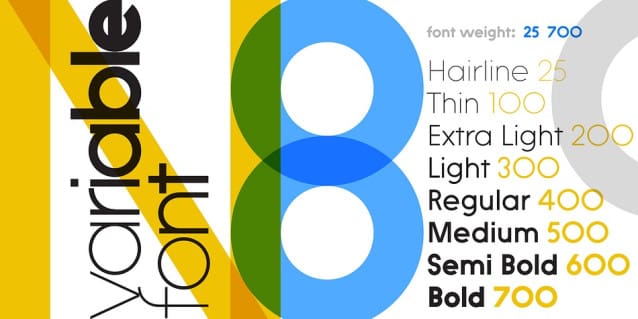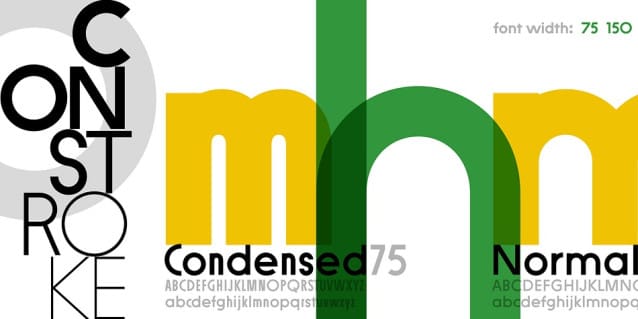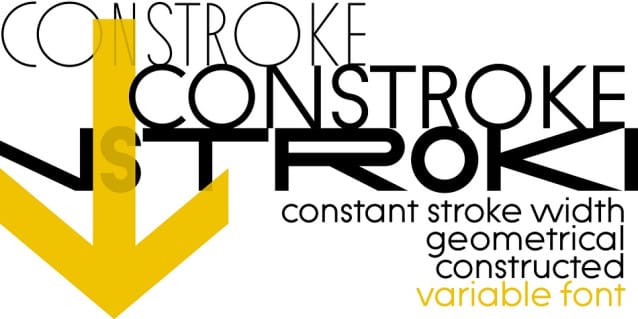
Constroke Font
Constroke Font. Designed by Ingo Zimmerman, Constroke is a sans serif font family. This typeface has twenty-five styles and was published by ingoFonts. Strictly geometrically constructed character forms with an even stroke width
The combination of the words constant and stroke results in the name for this typeface. The idea behind it: to construct letters according to geometric principles — without correcting the inevitable optical imbalances and unsightly thickening. So place the horizontal line in the H really in the middle, instead of raising it a bit like in “good” typographical manner. And with the E, all three dashes stay the same length. The round shapes are really circular too. And then I also ignored the basic typographical rule that says that the vertical stems must be thicker than the horizontal hairlines to appear equally bold to our eyes. The visible thickening that occurs when two lines cross or converge is simply accepted with the Constroke.
Against the rules
It is not because of our supposedly “modern” present that good rules are no longer relevant. However, they are only effective under certain conditions. If you look at the font at an angle and from the side, it suddenly doesn’t matter whether and how balanced the characters are. The distortion we then perceive makes all artistic and technical efforts pointless. An O viewed at an angle is just a distorted oval, whether drawn optically correctly a little taller than it is wide, or whether the stem is a little thicker than the hairline. With the straight shapes, the effect is even more pronounced: viewed from an angle, the difference in line widths appears absurdly reversed, making what was just thick appear thin and thick what should be thin.
But it wasn’t just such theoretical considerations that made me break the good old rules. The sheer joy of breaking the rules and ignoring perceived necessities such as ink traps allows for an informal approach to assembling the characters from a few basic geometric building blocks.
Typical CONSTROKE
The main feature of the Constroke is the constant stroke width. Especially in the heavier weights, veritable blots are created when two lines meet, for example at n, m, w, etc. The thickest weight results from the small e with its horizontal line in the middle, the one without optical compensation would merge into a round black dot from a certain stroke width.
Another typical feature of almost all geometric fonts is the round small a.
A true circle appears wider than it is tall, which is usually compensated for in character design. Not so in Constroke. The circular and therefore a bit too wide letters a b c d e g o p q are the characteristic distinguishing feature compared to other sans serif fonts.
Extras
Many characters are also available as stylistic alternates. This gives the font a completely different look. A total of 7 style sets and unusual ligatures invite you to play with alternate forms.
Constroke Font also includes tabular figures, circled numerals and directional arrows.